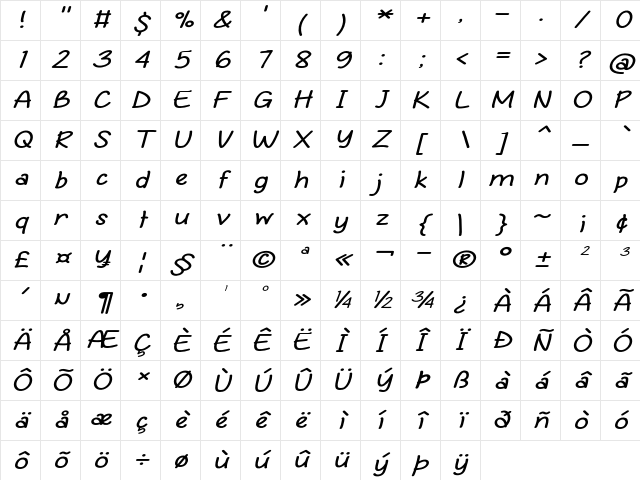
Complete Drawntastic Expanded Italic glyph index. Displaying only characters natively supported by Drawntastic Expanded Italic font.
Drawntastic is a composed and adaptable typeface that performs quietly and consistently across a wide range of design contexts. The slanted form adds forward momentum and visual energy.